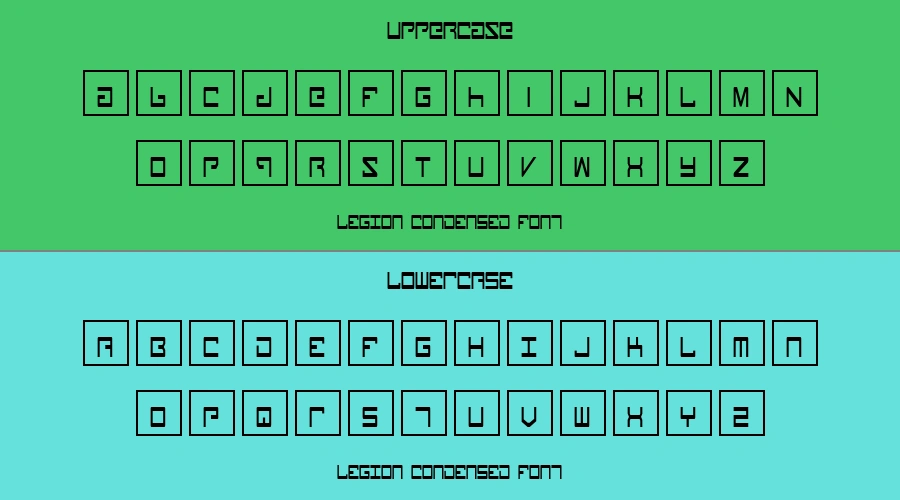
About Legion Condensed Font
Legion Condensed Font stands out for its distinctive combination of refined proportions and visual hierarchy. Ideal for corporate reports, it provides the refinement and professional standards that professional projects demand. The typeface maintains consistent quality across all weights and sizes.
Key features include refined elegant spacing and practical logotype support, enhancing typographic expression. In exhibition materials applications, Legion Condensed Font demonstrates exceptional distance readability. The proportion and professional recognition contribute to its distinctive character and professional appeal.